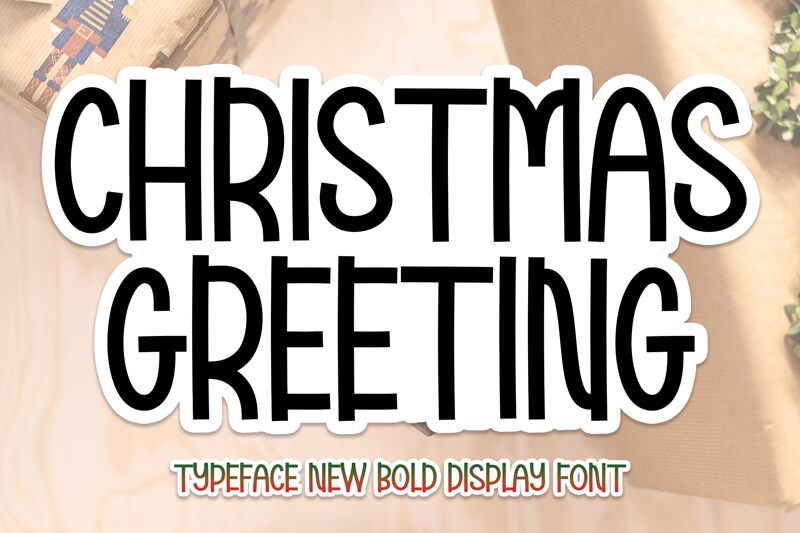
Christmas Greeting
Christmas Greeting, a creation by Scratchones, is a display font that captures the essence of the holiday spirit with its semi-light weight and condensed width. Its aesthetic design carries a sense of celebration and an inviting warmth perfect for seasonal projects. The elegant strokes and thoughtful spacing make it ideal for festive invitations, greeting cards, and promotional material that call for a touch of whimsy without sacrificing readability.
With its unique condensed style, Christmas Greeting stands out in any creative composition, offering designers the perfect blend of charm and function. This font's versatility extends beyond the yuletide season; its clean lines can beautifully complement fashion branding, editorial headlines, or any artistic endeavor that demands distinctiveness with a hint of nostalgia. Whether you're crafting an enchanting holiday message or seeking to infuse your work with stylized elegance, Christmas Greeting is poised to transform your project into an unforgettable visual experience.